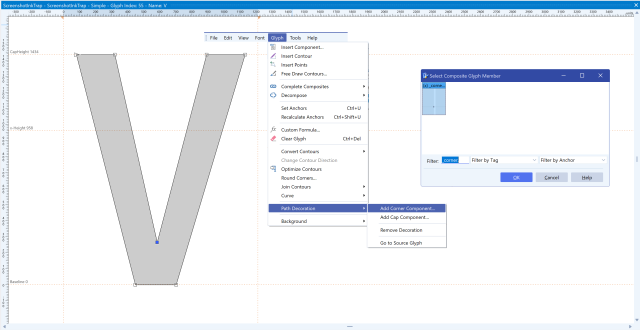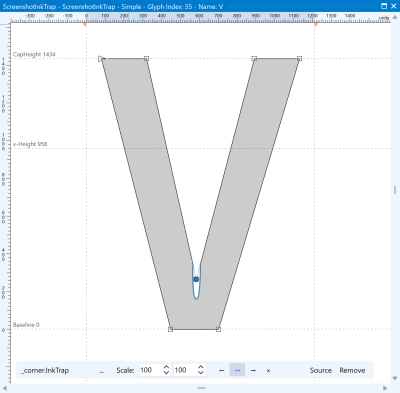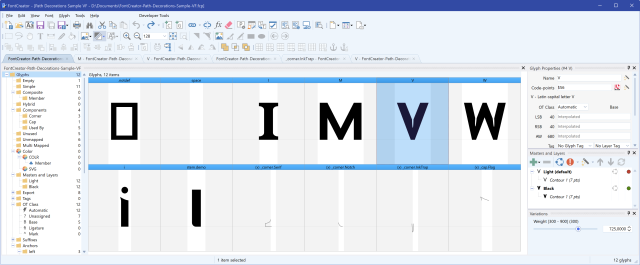
How to Create Ink Traps in FontCreator
Ink traps are built with Corner Decorations. This page teaches exactly enough of that feature to make traps. The full model is explained in Reusable Corners, Serifs & Caps with Path Decorations.
An ink trap is a small notch cut into a tight joint of a letter, such as the crotch of a V or the apex of an M, to keep the joint from becoming too dark or closing up when the font is printed small. In FontCreator you don't have to carve these notches by hand on every glyph: draw the cut once as a donor glyph, then attach it to every joint that needs it with a Corner Decoration. Edit the donor once, and every trap in the font updates.
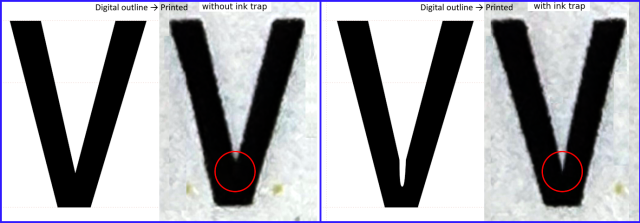
Left: the joint fills in at small sizes. Right: the same V with an ink trap — the notch gives the spreading ink extra room, so the printed corner stays open and crisp.
What an ink trap is and why fonts have them
When type is printed very small, especially on absorbent paper or under demanding press conditions, ink can spread beyond the intended outline and make fine details appear heavier. Tight interior corners are particularly vulnerable: where two strokes meet at a narrow angle, the remaining white space can become so small that the joint closes up and turns into a dark blob.
An ink trap compensates for this by deliberately removing material at the joint. The outline may look exaggerated when enlarged on screen, but when printed at the size it was designed for, the spreading ink fills some of that extra space. A well-judged functional trap should therefore be difficult to notice at reading size as the joint simply looks clean.
Classic examples include Matthew Carter's Bell Centennial, designed in the 1970s for AT&T telephone directories printed at small sizes on inexpensive newsprint, and Tobias Frere-Jones's Retina, commissioned by The Wall Street Journal for dense financial tables. Both use pronounced cut-ins at tight joints to compensate for ink spread in demanding small-print conditions.
Functional ink traps are most relevant when a typeface must remain clear at small sizes under reproduction conditions that can close tight details. In output conditions with little ink spread they may be unnecessary. Ink traps can also be used deliberately as a visible stylistic feature in display typefaces. The construction technique is the same; only the purpose and depth are different.
Where ink traps go
Ink traps belong at tight interior joints — places where strokes meet and the remaining white space narrows sharply.
Common candidates include:
- the inside joints of
V,W,MandN, and lowercasevandw - the inner apex of
A - tight crossing or joining areas in letters such as
K,XandY - the closed joint of the digit
4 - in heavy designs, places where a shoulder or bowl joins a stem, such as in
n,m,bandd
Not every one of these needs a trap in every typeface. The actual outline, weight, intended size and printing conditions determine whether compensation is useful.
Outside corners are different. A finish added to an outside corner is normally a serif, spur, notch or another decorative treatment rather than a functional ink trap. FontCreator can create those with the same Corner Decoration mechanism but a different donor.
As a rule of thumb, the tighter the joint and the heavier the weight, the more likely it is to need relief. A light, open design may need no traps at all; a very heavy design may need considerably more space at the same junction.
The tool: a Corner Decoration with a cut-away donor
A Corner Decoration attaches a small designed sub-shape, the donor glyph, to a single on-curve point of an outline.
The host glyph keeps its authored outline. The decoration is applied non-destructively inside FontCreator and becomes ordinary outline geometry when the font is exported.
Many points can reference the same donor. That makes Corner Decorations especially useful for ink traps: define one cut once, then reuse it throughout the font.
For an ink trap, the donor is a cut-away. Instead of adding material to the corner, as a serif donor might, it removes material from the joint.
Step by step: trap the apex of a V
1. Create the donor glyph
Add a new empty glyph to the font and name it:
_corner.InkTrap
This follows FontCreator's _corner.<name> naming convention. When you use Add Corner Component…, the Select Composite Glyph Member dialog is filtered to _corner. by default, making correctly named donors easy to find. You can clear the filter if you want to select another glyph.
Also exclude the donor glyph from the exported font. In the Font Overview, right-click the corner glyph and choose Include in Exports → None. The donor is only used while designing the font and does not need to be included in the final font.
2. Draw the cut
The ink-trap donor must be an open contour. Start at one side of the mouth, draw through the bottom of the cut, and end at the other side. Draw the trap as it should appear at a downward-pointing joint. Do not close the contour. If it is closed, right-click the contour and choose Toggle Open Contour.
How deep should an ink trap be?
There is no fixed value.
Make it deep enough to keep the joint open under the intended conditions, but not so deep that a functional trap remains distracting at normal reading size. Test the finished font at its actual target size and, when the purpose is print compensation, make physical proofs.